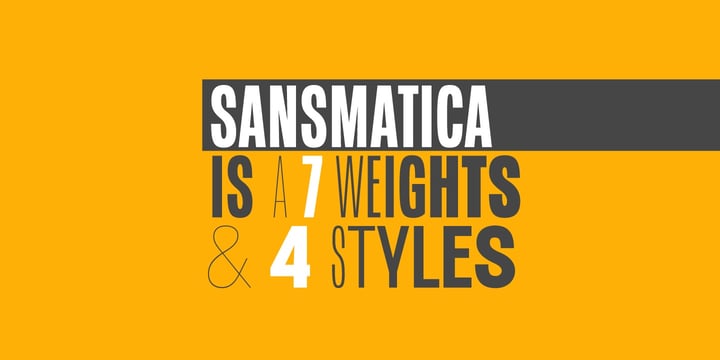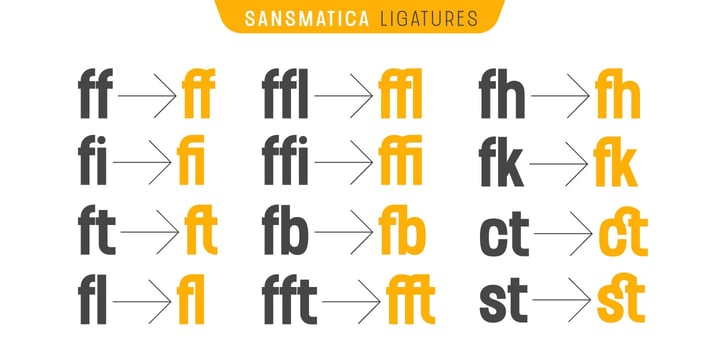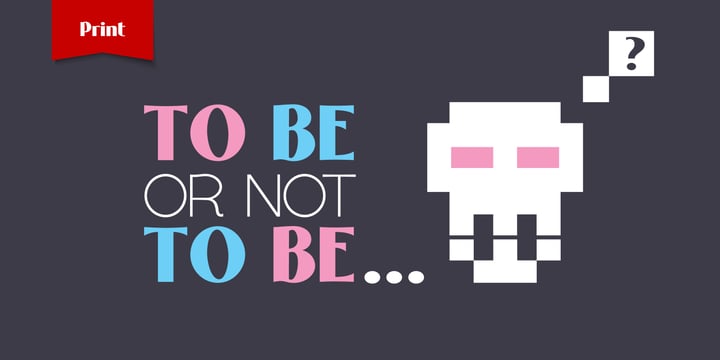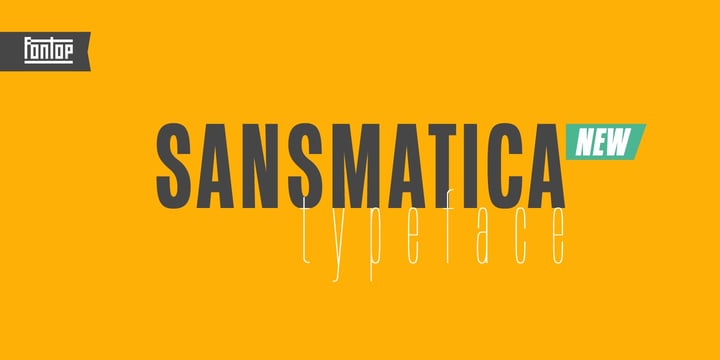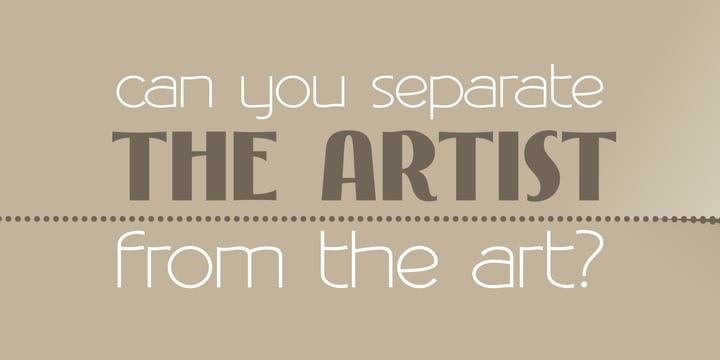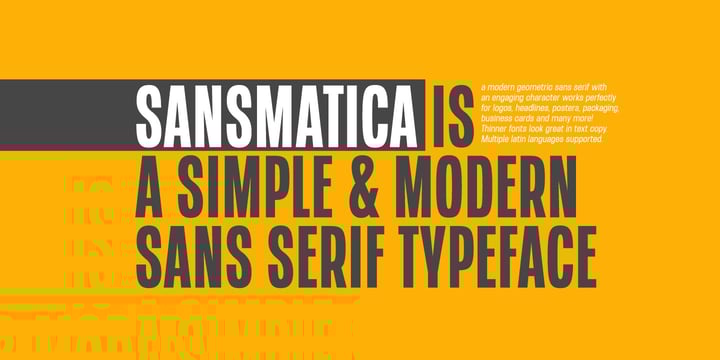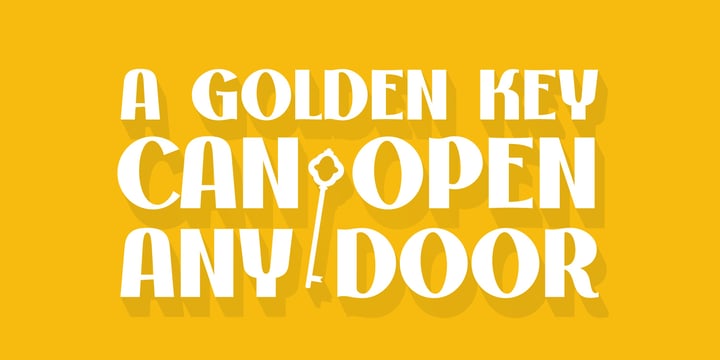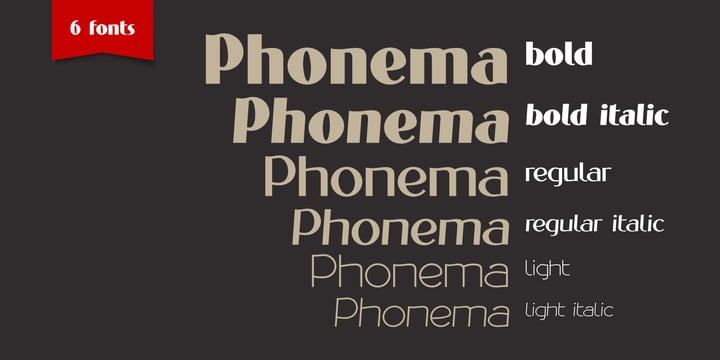
Modern Contrast Sans Pack
Modern Contrast Sans Pack brings together two distinct sans-serif styles, each offering its own unique strength. One font features tall, clean, classical proportions suited for refined, timeless design work, while the other delivers a bold, contemporary look ideal for eye-catching headlines and modern visuals. This pack gives designers a flexible choice between elegance and impact, making it easy to select the right tone for any project.